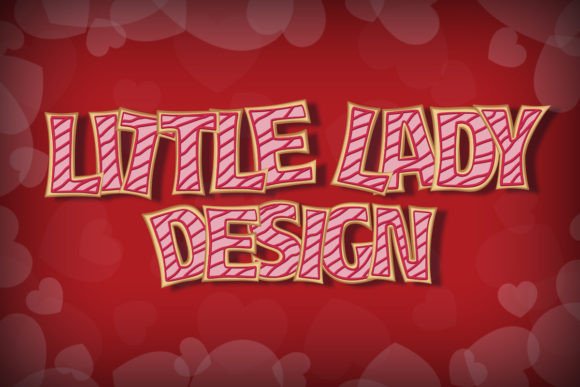
Happy Valentine Day Font: The Perfect Addition to Your Font Library
Are you looking for a font that can add a touch of love and warmth to your designs? Look no further than the Happy Valentine Day Font! This stunning font is a great color font that is sure to catch the eye and leave a lasting impression. In this article, we’ll take a closer look at the Happy Valentine Day Font and explore its features, uses, and benefits for designers and crafters.
What Makes Happy Valentine Day Font So Special?
The Happy Valentine Day Font is a highly detailed and eye-catching font that is perfect for a wide range of design projects. Its unique and playful style makes it an excellent choice for designs that require a touch of whimsy and romance. Whether you’re working on a wedding invitation, social media post, or product packaging, this font is sure to add a special something to your design.
Key Features of Happy Valentine Day Font
- Eye-catching and highly detailed: The Happy Valentine Day Font is designed to grab attention and make a lasting impression. Its intricate details and unique style make it a standout font that will set your designs apart.
- Versatile: This font is perfect for a wide range of design projects, from wall displays and wedding invitations to social media posts and product packaging.
- Great color font: The Happy Valentine Day Font is a great color font that will add a pop of color and interest to your designs.
Uses for Happy Valentine Day Font
The Happy Valentine Day Font is a versatile font that can be used for a wide range of design projects, including:
- Wall displays: Create eye-catching wall displays for special occasions, such as Valentine’s Day or weddings.
- Wedding invitations: Add a touch of romance and whimsy to your wedding invitations with this beautiful font.
- Social media posts: Use the Happy Valentine Day Font to create engaging and eye-catching social media posts that will grab attention.
- Logos and advertisements: Create professional-looking logos and advertisements that will make a lasting impression.
- Product packaging: Add a touch of personality to your product packaging with this unique and playful font.
- Product designs: Use the Happy Valentine Day Font to create stunning product designs that will stand out.
- Labels and photography: Add a touch of whimsy to your labels and photography with this beautiful font.
- Watermarks: Use the Happy Valentine Day Font to create custom watermarks that will add a touch of personality to your designs.
- Invitations and stationery: Create beautiful invitations and stationery that will make a lasting impression.
The Happy Valentine Day Font offers a range of benefits for designers and crafters, including:
- Increased creativity: With the Happy Valentine Day Font, you’ll have access to a unique and playful font that will inspire your creativity and help you create stunning designs.
- Time-saving: This font is easy to use and can be incorporated into your designs quickly and easily, saving you time and effort.
- Professional-looking designs: The Happy Valentine Day Font is a high-quality font that will help you create professional-looking designs that will impress your clients or audience.
In conclusion, the Happy Valentine Day Font is a fantastic addition to any font library. Its unique and playful style, highly detailed design, and versatility make it an excellent choice for a wide range of design projects. Whether you’re a designer or crafter, this font is sure to inspire your creativity and help you create stunning designs that will leave a lasting impression.